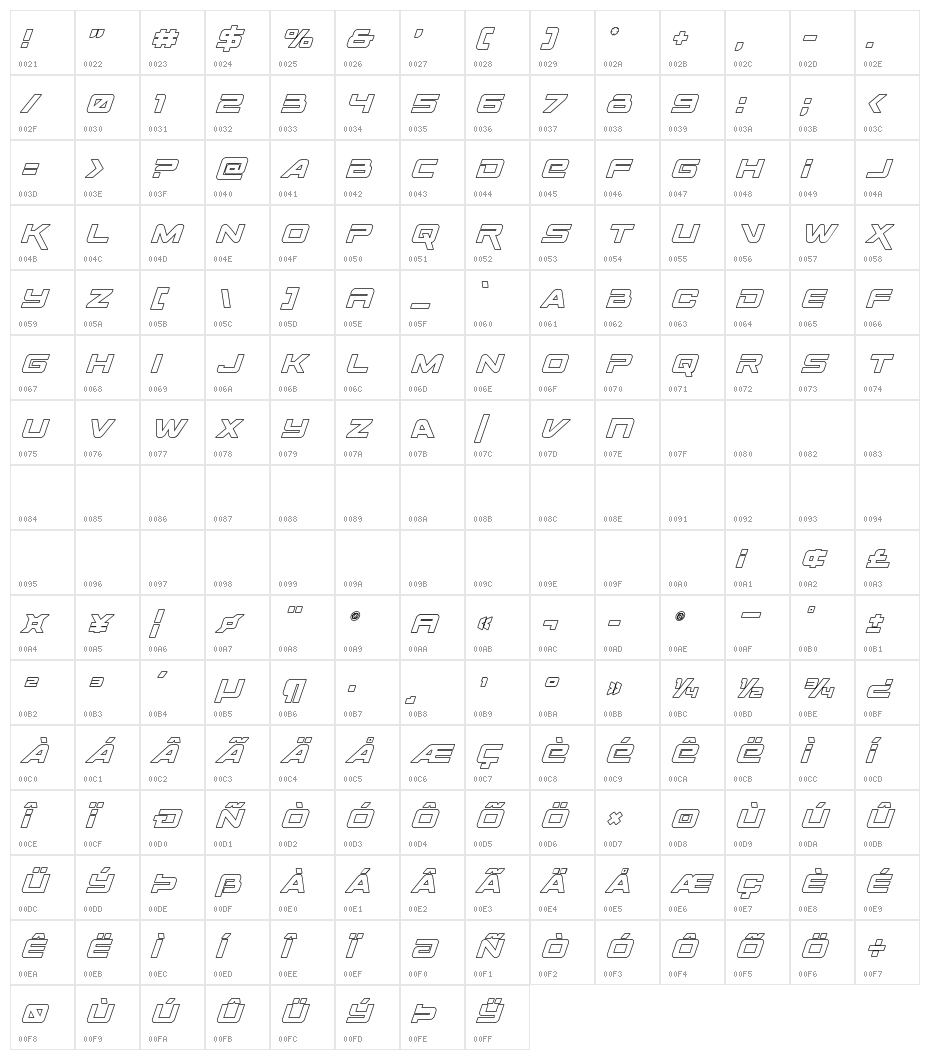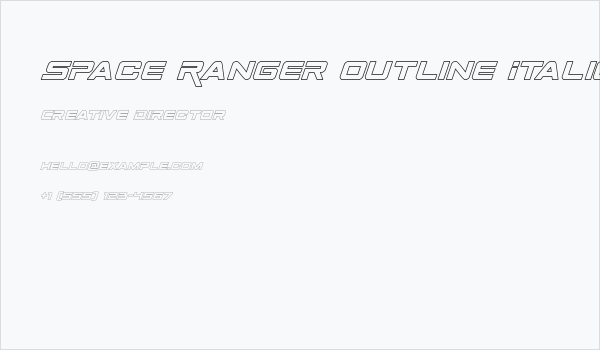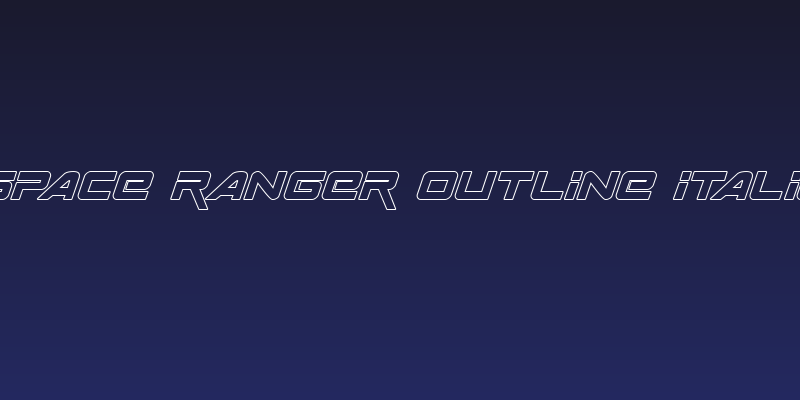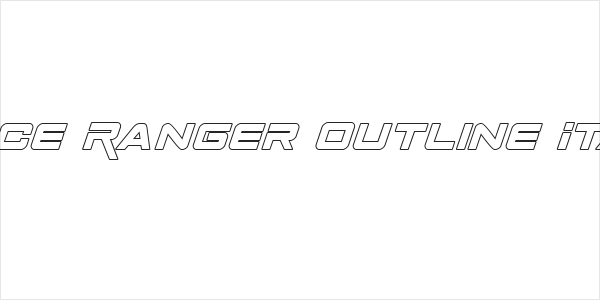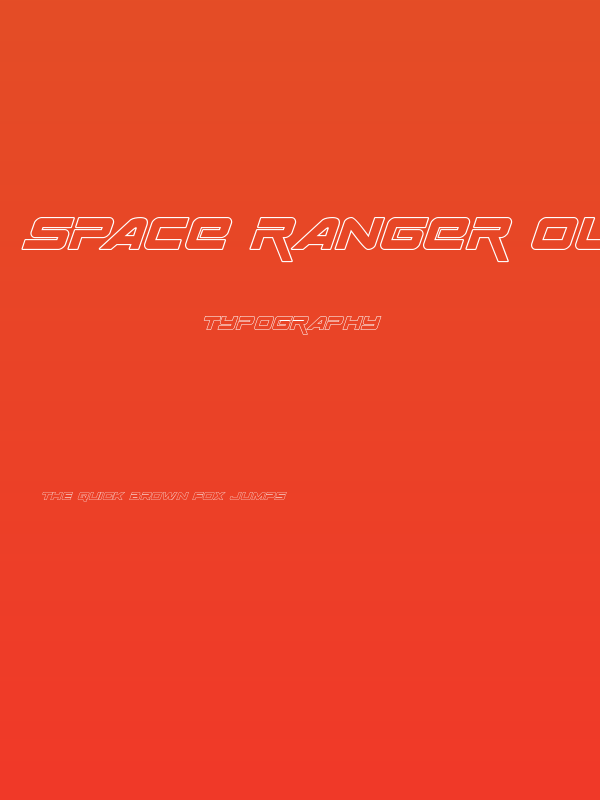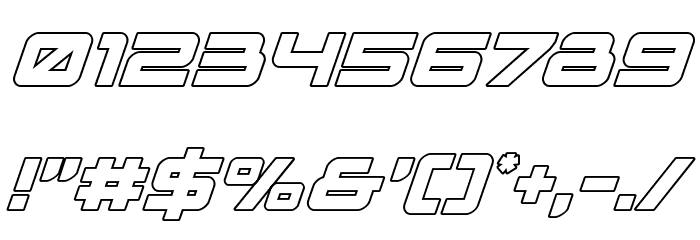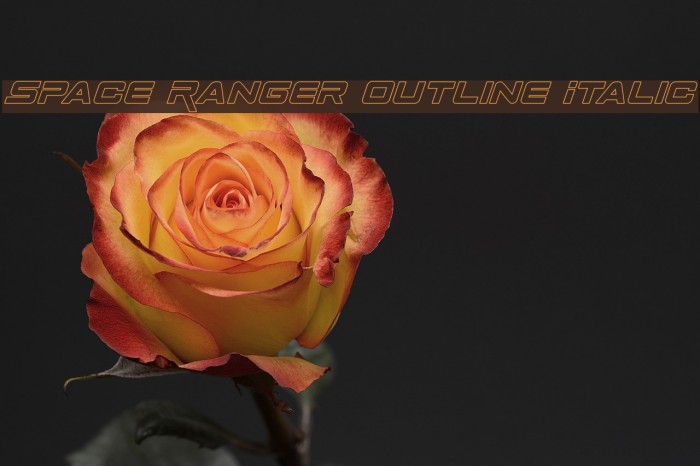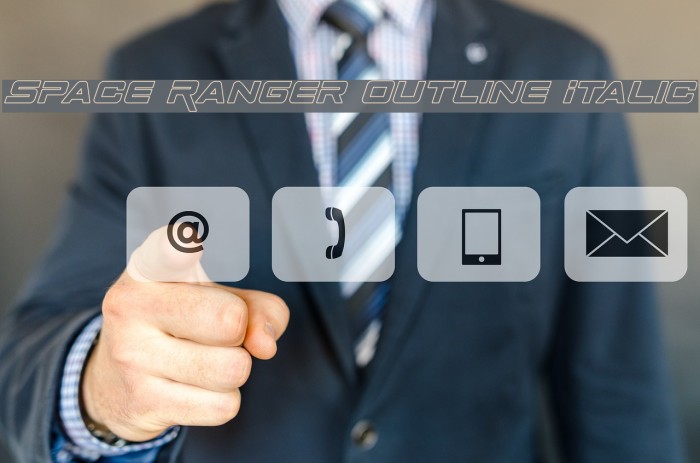
Space Ranger Outline Italic Font
Space Ranger Outline Italic Description
This font features a futuristic and dynamic outline style with a distinct italic slant, giving it a sense of motion and energy. The characters are bold and geometric, with sharp angles and clean lines that create a modern and sleek appearance. The uppercase and lowercase letters maintain a consistent style, while the numerals and special characters complement the overall design. The outline effect adds a unique dimension, making it stand out in various applications.
| Proposed Projects | Ideal for sci-fi themed projects, video game titles, posters, and branding that requires a modern and energetic look. |